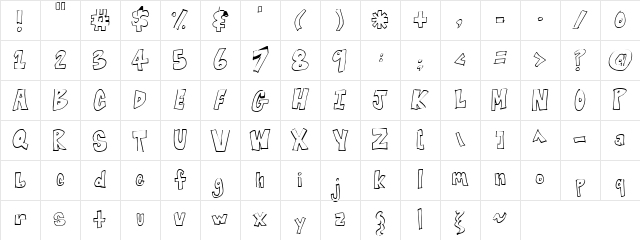
KG Blocked Off Regular
Foundry: Kimberly Geswein
Designer: Kimberly Geswein
Design Context for KG Blocked Off
KG Blocked Off is a composed and adaptable typeface that performs quietly and consistently across a wide range of design contexts.